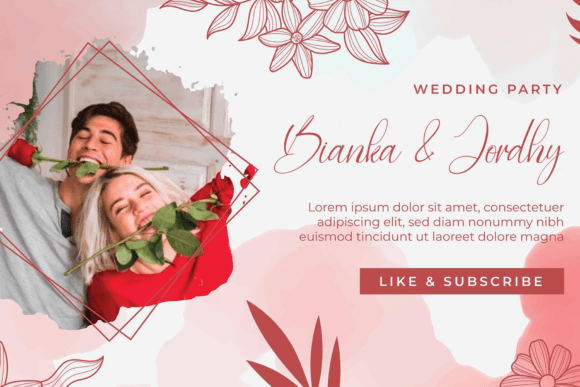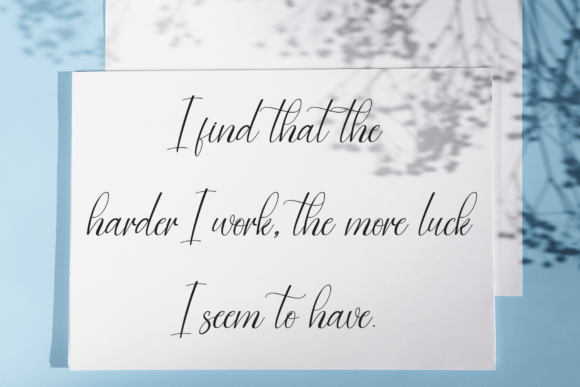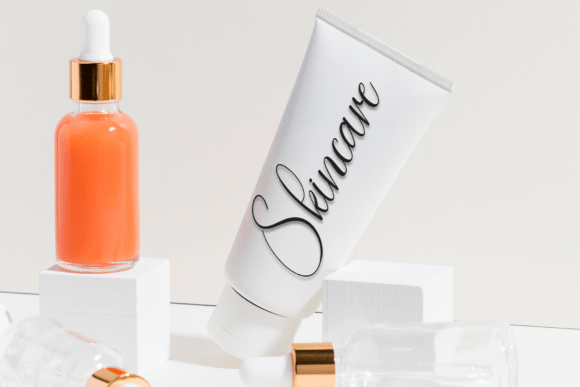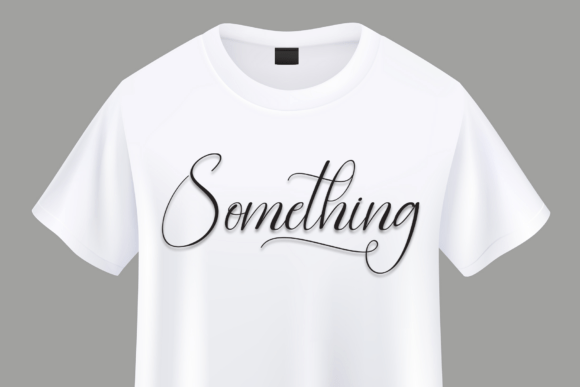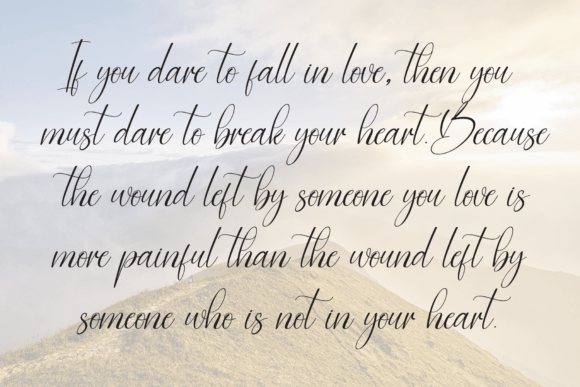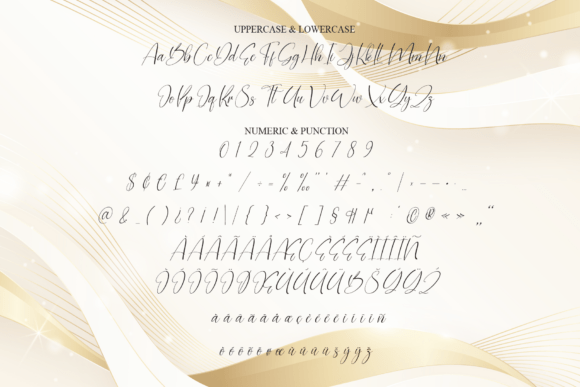
Introduction to Goldesty Font Font
Fonts play a crucial role in design, and the Goldesty Font font is a typeface that brings both character and versatility to any project. Whether you’re working on a branding project, a website, or a print design, the Goldesty Font font offers a unique style that can elevate your work.
Elegant, flowing, and full of charm — this script font brings a touch of sophistication to any design.
Perfect for weddings, branding, social media, and invitations, it features smooth curves and graceful swashes that elevate your text with a handwritten, romantic feel Whether you’re crafting a signature logo or heartfelt quote, this font adds a personal and stylish flair.
Key Features of Goldesty Font Font
Why Choose Goldesty Font Font?
The Goldesty Font font is more than just a typeface – it’s a design tool that helps you communicate your message with style and clarity. Its unique character set and versatile design make it suitable for a wide range of applications, from elegant invitations to bold headlines.
With its carefully crafted letterforms and balanced proportions, the Goldesty Font font ensures readability and visual appeal across all mediums.
What makes Goldesty Font font special?
The Goldesty Font font stands out with its unique design, exceptional readability, and versatility across various design applications.